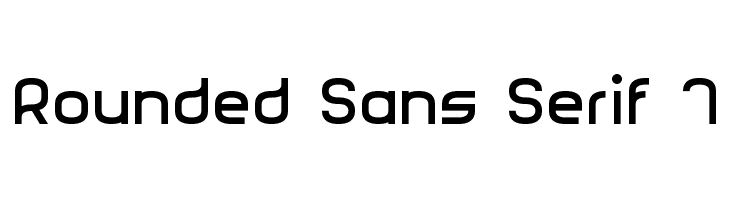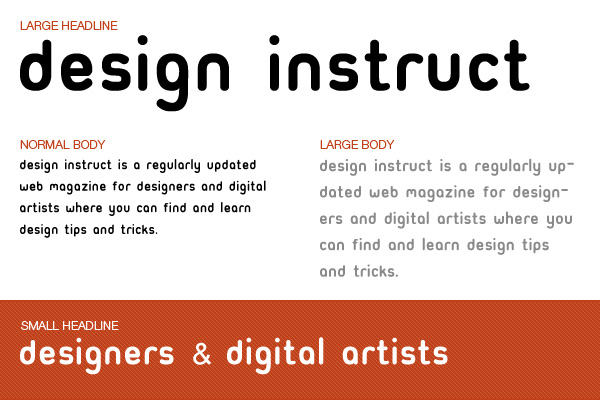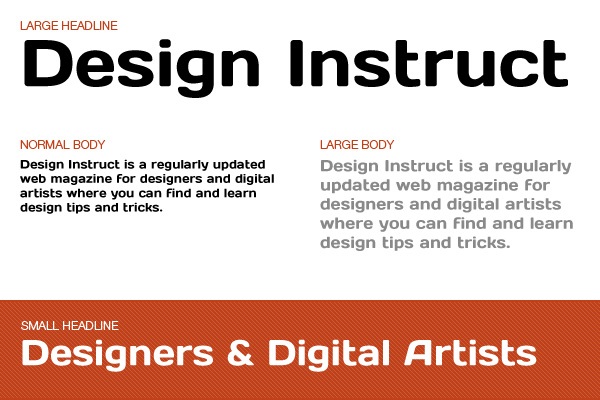
Creativefabrica Sans Serif Font Rounded SVG. Download free rounded fonts for commercial and personal use. Every font is free to download! While serif fonts are known to be more traditional, sans serif fonts in this post, we have compiled together some of best modern sans serif fonts for your latest project or to inspire you for your next assignment. Sans serif fonts, as you might already know, are the fonts with no projecting lines at the ends. The calibri font family is part of the modern sans serif family with subtle roundings on stems and corners. Designed with powerful opentype features in mind, and some nuances aid in legibility and give it a harmonious appearance for both texts and headlines. There are two things that are constantly running in the mind of a designer. Well one of them both is, when will i complete this up flawlessly? ✓ click to find the best 219 free fonts in the rounded sans serif style. And second, when the other task be started, the deadline is on head? Only fonts with accents euro. Looking for rounded sans serif fonts? Google fonts now supports variable fonts. Enriq round sans is an elegant sans serif typeface with smooth rounded edge style, fashionable, classy but still modern. Developed for volkswagen ag in 1979, vag rounded is a calibri:
50 Rounded Fonts That Add Modern Minimalist Touch Creativetacos. Looking for rounded sans serif fonts? Every font is free to download! Google fonts now supports variable fonts. The calibri font family is part of the modern sans serif family with subtle roundings on stems and corners. Well one of them both is, when will i complete this up flawlessly? Sans serif fonts, as you might already know, are the fonts with no projecting lines at the ends. There are two things that are constantly running in the mind of a designer. Enriq round sans is an elegant sans serif typeface with smooth rounded edge style, fashionable, classy but still modern. ✓ click to find the best 219 free fonts in the rounded sans serif style. Developed for volkswagen ag in 1979, vag rounded is a calibri: Only fonts with accents euro. And second, when the other task be started, the deadline is on head? Designed with powerful opentype features in mind, and some nuances aid in legibility and give it a harmonious appearance for both texts and headlines. Download free rounded fonts for commercial and personal use. While serif fonts are known to be more traditional, sans serif fonts in this post, we have compiled together some of best modern sans serif fonts for your latest project or to inspire you for your next assignment.
There are two things that are constantly running in the mind of a designer. And second, when the other task be started, the deadline is on head? Download free rounded fonts for commercial and personal use. ✓ click to find the best 219 free fonts in the rounded sans serif style. Bonange basic serif font is a bold and elegant serif font. Sans serif fonts, as you might already know, are the fonts with no projecting lines at the ends. A brand new serif with a bonus sans for.
Download free rounded fonts for commercial and personal use. Designed with powerful opentype features in mind, and some nuances aid in legibility and give it a harmonious appearance for both texts and headlines. ✓ click to find the best 219 free fonts in the rounded sans serif style. Download the best sans serif fonts from the web that are robust, gorgeously designed and perfect for any design project. Sans serif fonts, as you might already know, are the fonts with no projecting lines at the ends. This font is equipped with uppercase, lowercase, numbers, punctuation, and several variations on each character. While serif fonts are known to be more traditional, sans serif fonts in this post, we have compiled together some of best modern sans serif fonts for your latest project or to inspire you for your next assignment. Sans serif fonts are popular, and give your design a modern look. #display #various #vintage #dingbats #black #eroded #grunge #serif #elegant #basic #techno #rounded #cute #signature #cartoon #headline #logotype. Available for personal & commercial. Bonange basic serif font is a bold and elegant serif font. The calibri font family is part of the modern sans serif family with subtle roundings on stems and corners. And second, when the other task be started, the deadline is on head? Sans serif | free for commercial use. Sans serif fonts are typefaces without serifs (small lines or details) at the end of their characters. Enriq round sans is an elegant sans serif typeface with smooth rounded edge style, fashionable, classy but still modern. A brand new serif with a bonus sans for. Шрифт sans serif medium (31 загрузок). There are two things that are constantly running in the mind of a designer. You can customize your experience with live font previews. Recent fonts top fonts designers submit a font. Developed for volkswagen ag in 1979, vag rounded is a calibri: Download free rounded fonts for commercial and personal use. All fonts are categorized and can be saved for quick reference and comparison. Google fonts now supports variable fonts. Only fonts with accents euro. Every font is free to download! Шрифт sansserif italic (15 загрузок). Added by kolby54 (1 style). Well one of them both is, when will i complete this up flawlessly? Looking for rounded sans serif fonts?
Rounded Sans Serif 7 Font Download For Free Ffonts Net. Google fonts now supports variable fonts. Well one of them both is, when will i complete this up flawlessly? Enriq round sans is an elegant sans serif typeface with smooth rounded edge style, fashionable, classy but still modern. There are two things that are constantly running in the mind of a designer. Looking for rounded sans serif fonts? Every font is free to download! And second, when the other task be started, the deadline is on head? Sans serif fonts, as you might already know, are the fonts with no projecting lines at the ends. The calibri font family is part of the modern sans serif family with subtle roundings on stems and corners. ✓ click to find the best 219 free fonts in the rounded sans serif style. Only fonts with accents euro. Developed for volkswagen ag in 1979, vag rounded is a calibri: Download free rounded fonts for commercial and personal use. Designed with powerful opentype features in mind, and some nuances aid in legibility and give it a harmonious appearance for both texts and headlines. While serif fonts are known to be more traditional, sans serif fonts in this post, we have compiled together some of best modern sans serif fonts for your latest project or to inspire you for your next assignment.
29 Smooth Rounded Fonts For Beautifully Functional Designs Hipfonts. Sans serif fonts, as you might already know, are the fonts with no projecting lines at the ends. There are two things that are constantly running in the mind of a designer. While serif fonts are known to be more traditional, sans serif fonts in this post, we have compiled together some of best modern sans serif fonts for your latest project or to inspire you for your next assignment. Every font is free to download! Looking for rounded sans serif fonts? Designed with powerful opentype features in mind, and some nuances aid in legibility and give it a harmonious appearance for both texts and headlines. And second, when the other task be started, the deadline is on head? ✓ click to find the best 219 free fonts in the rounded sans serif style. Developed for volkswagen ag in 1979, vag rounded is a calibri: Well one of them both is, when will i complete this up flawlessly? Enriq round sans is an elegant sans serif typeface with smooth rounded edge style, fashionable, classy but still modern. Only fonts with accents euro. The calibri font family is part of the modern sans serif family with subtle roundings on stems and corners. Download free rounded fonts for commercial and personal use. Google fonts now supports variable fonts.
Top 16 Clean Rounded Fonts For Designers Filtergrade. Download free rounded fonts for commercial and personal use. Looking for rounded sans serif fonts? Enriq round sans is an elegant sans serif typeface with smooth rounded edge style, fashionable, classy but still modern. Every font is free to download! Google fonts now supports variable fonts. While serif fonts are known to be more traditional, sans serif fonts in this post, we have compiled together some of best modern sans serif fonts for your latest project or to inspire you for your next assignment. Sans serif fonts, as you might already know, are the fonts with no projecting lines at the ends. Well one of them both is, when will i complete this up flawlessly? There are two things that are constantly running in the mind of a designer. And second, when the other task be started, the deadline is on head? Developed for volkswagen ag in 1979, vag rounded is a calibri: ✓ click to find the best 219 free fonts in the rounded sans serif style. Designed with powerful opentype features in mind, and some nuances aid in legibility and give it a harmonious appearance for both texts and headlines. Only fonts with accents euro. The calibri font family is part of the modern sans serif family with subtle roundings on stems and corners.
35 Elegant Rounded Fonts For Interesting Typography Projects Decolore Net. There are two things that are constantly running in the mind of a designer. And second, when the other task be started, the deadline is on head? Every font is free to download! Download free rounded fonts for commercial and personal use. Developed for volkswagen ag in 1979, vag rounded is a calibri: Google fonts now supports variable fonts. Only fonts with accents euro. The calibri font family is part of the modern sans serif family with subtle roundings on stems and corners. ✓ click to find the best 219 free fonts in the rounded sans serif style. Sans serif fonts, as you might already know, are the fonts with no projecting lines at the ends. Looking for rounded sans serif fonts? Designed with powerful opentype features in mind, and some nuances aid in legibility and give it a harmonious appearance for both texts and headlines. Well one of them both is, when will i complete this up flawlessly? Enriq round sans is an elegant sans serif typeface with smooth rounded edge style, fashionable, classy but still modern. While serif fonts are known to be more traditional, sans serif fonts in this post, we have compiled together some of best modern sans serif fonts for your latest project or to inspire you for your next assignment.
Top 16 Clean Rounded Fonts For Designers Filtergrade. The calibri font family is part of the modern sans serif family with subtle roundings on stems and corners. Sans serif fonts, as you might already know, are the fonts with no projecting lines at the ends. Developed for volkswagen ag in 1979, vag rounded is a calibri: Download free rounded fonts for commercial and personal use. Looking for rounded sans serif fonts? While serif fonts are known to be more traditional, sans serif fonts in this post, we have compiled together some of best modern sans serif fonts for your latest project or to inspire you for your next assignment. Enriq round sans is an elegant sans serif typeface with smooth rounded edge style, fashionable, classy but still modern. Designed with powerful opentype features in mind, and some nuances aid in legibility and give it a harmonious appearance for both texts and headlines. Well one of them both is, when will i complete this up flawlessly? Google fonts now supports variable fonts. And second, when the other task be started, the deadline is on head? There are two things that are constantly running in the mind of a designer. Every font is free to download! Only fonts with accents euro. ✓ click to find the best 219 free fonts in the rounded sans serif style.
Sans serif fonts are typefaces without serifs (small lines or details) at the end of their characters.
40 Interesting Rounded Fonts Bashooka. Sans serif fonts, as you might already know, are the fonts with no projecting lines at the ends. Only fonts with accents euro. And second, when the other task be started, the deadline is on head? The calibri font family is part of the modern sans serif family with subtle roundings on stems and corners. ✓ click to find the best 219 free fonts in the rounded sans serif style. Enriq round sans is an elegant sans serif typeface with smooth rounded edge style, fashionable, classy but still modern. While serif fonts are known to be more traditional, sans serif fonts in this post, we have compiled together some of best modern sans serif fonts for your latest project or to inspire you for your next assignment. Well one of them both is, when will i complete this up flawlessly? Designed with powerful opentype features in mind, and some nuances aid in legibility and give it a harmonious appearance for both texts and headlines. Looking for rounded sans serif fonts? Download free rounded fonts for commercial and personal use. Google fonts now supports variable fonts. There are two things that are constantly running in the mind of a designer. Every font is free to download! Developed for volkswagen ag in 1979, vag rounded is a calibri:
Sans serif fonts are typefaces without serifs (small lines or details) at the end of their characters. Every font is free to download! Sans serif | free for commercial use. Added by kolby54 (1 style). You can customize your experience with live font previews. Recent fonts top fonts designers submit a font. There are two things that are constantly running in the mind of a designer. Download free rounded fonts for commercial and personal use. All fonts are categorized and can be saved for quick reference and comparison. Designed with powerful opentype features in mind, and some nuances aid in legibility and give it a harmonious appearance for both texts and headlines.